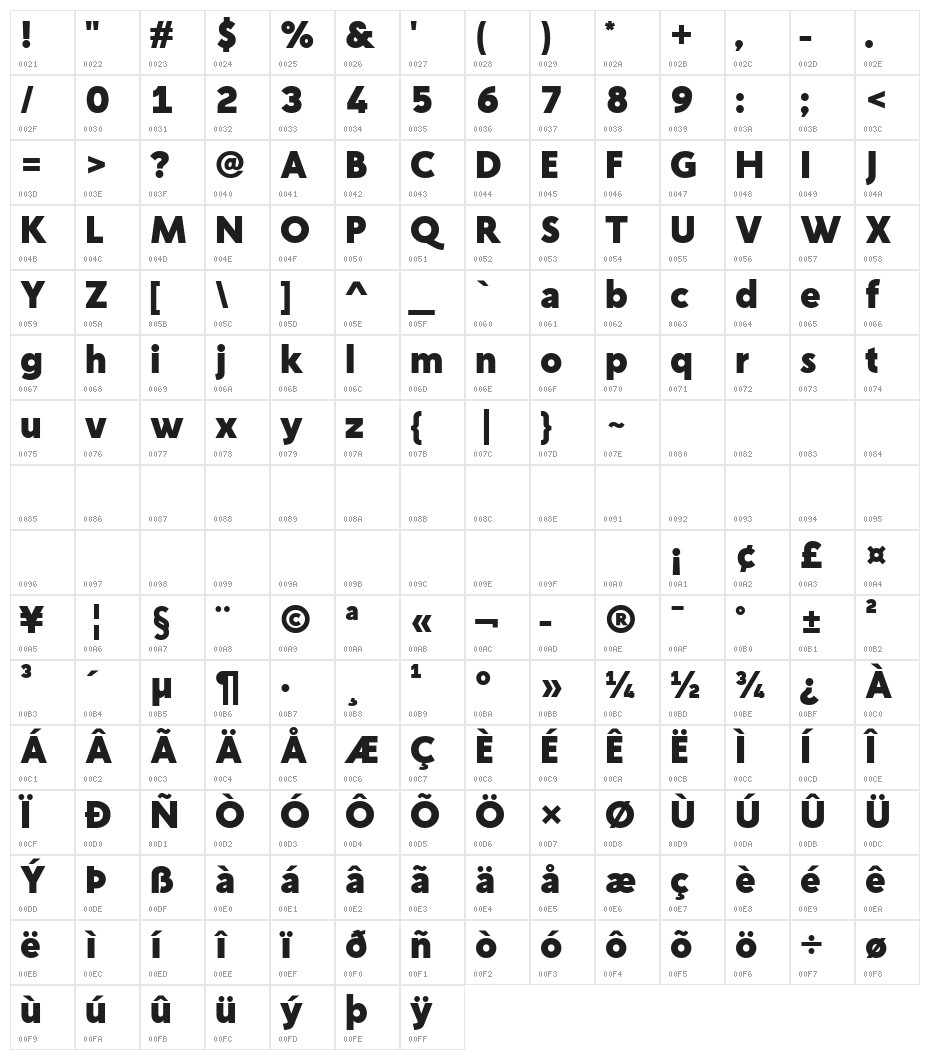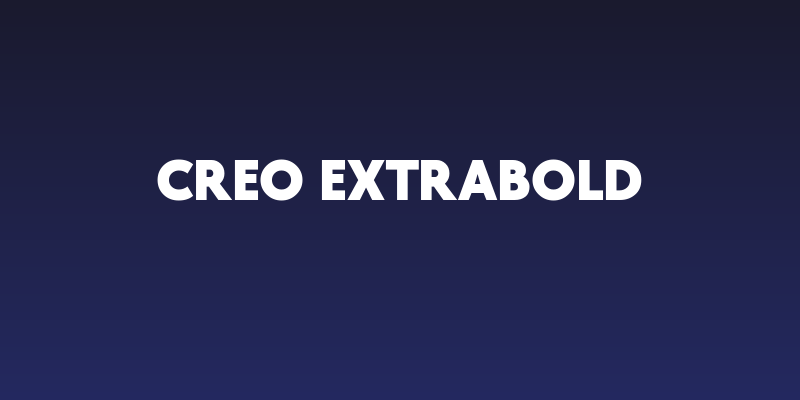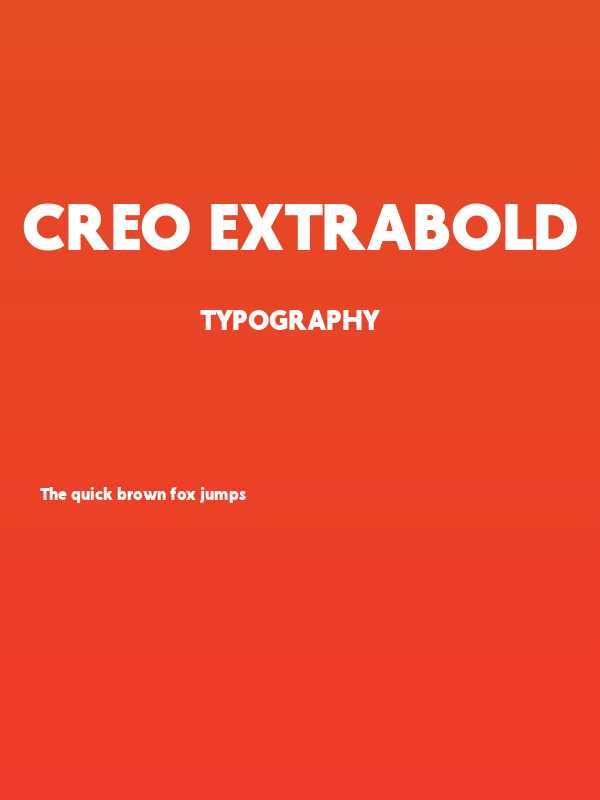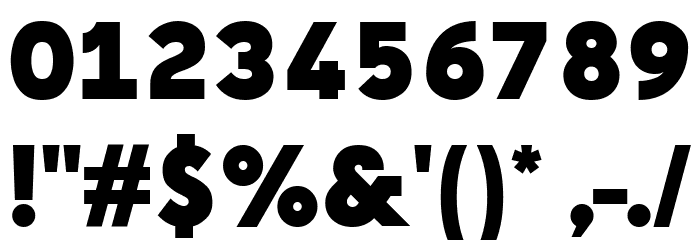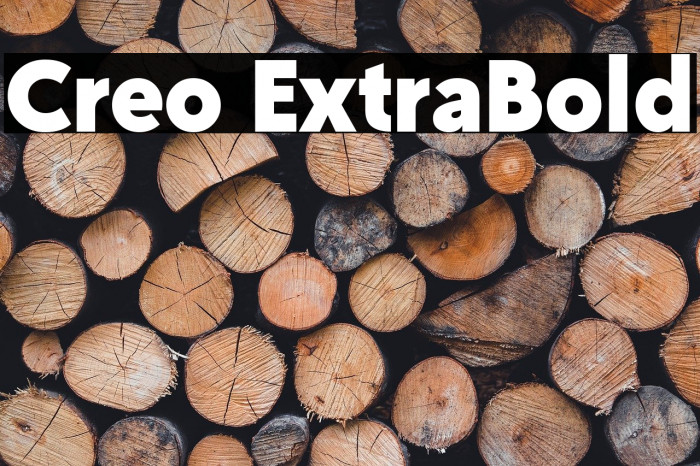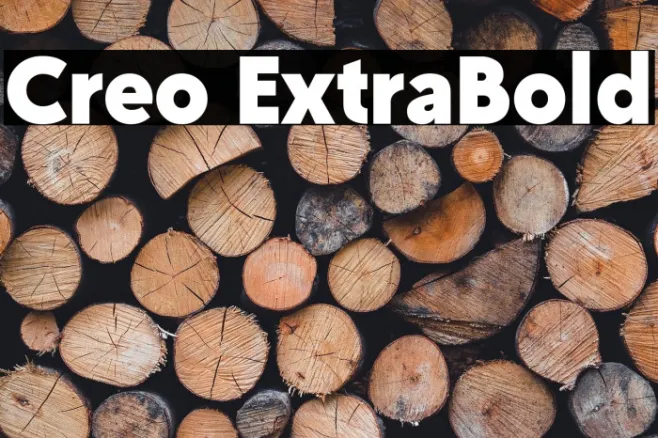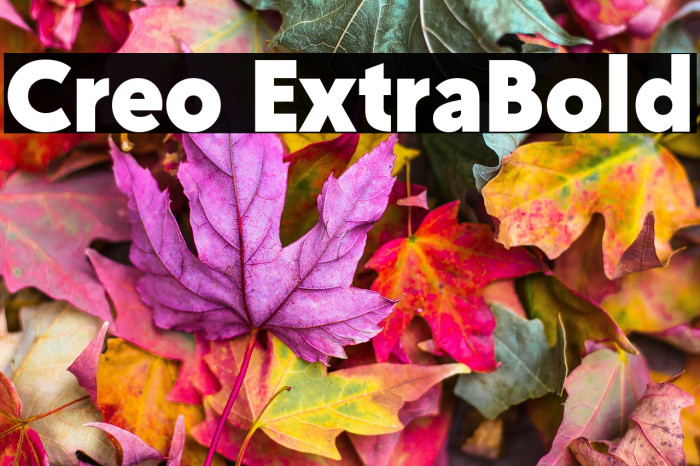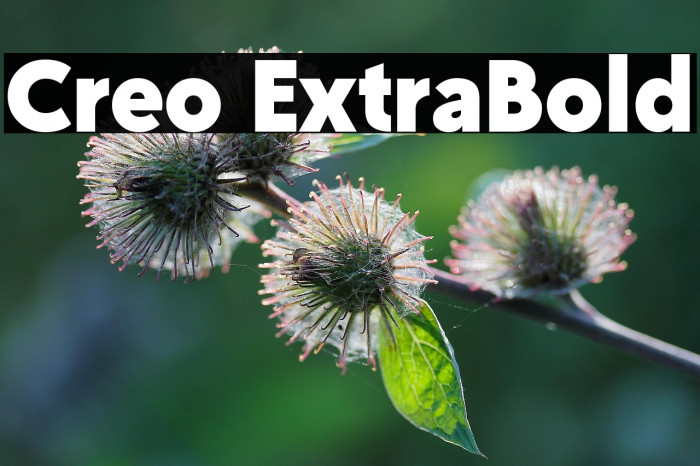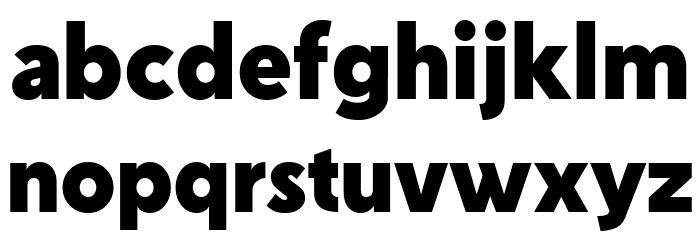
Creo ExtraBold Font
Creo ExtraBold Description
This typeface is characterized by its bold and impactful presence, featuring thick strokes and a strong geometric structure. The uppercase letters are uniform in height, creating a cohesive and balanced appearance. The lowercase letters maintain a similar weight, providing consistency across different text sizes. The numerals are clear and easily distinguishable, making them suitable for various applications. Special characters are designed with the same boldness, ensuring they stand out in any context. Overall, this font exudes a modern and assertive style, perfect for making a statement.